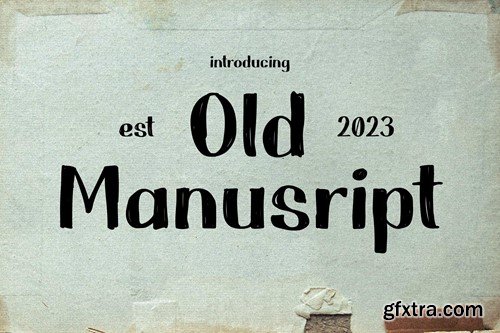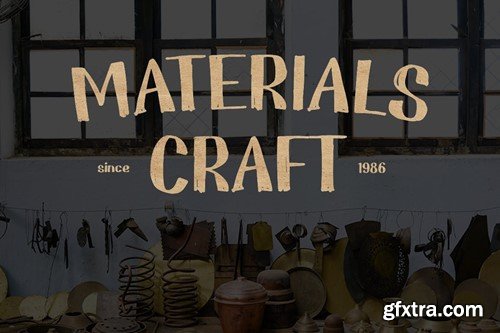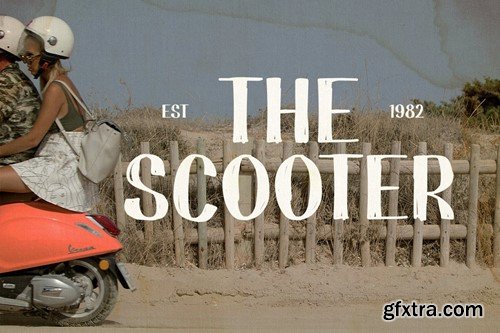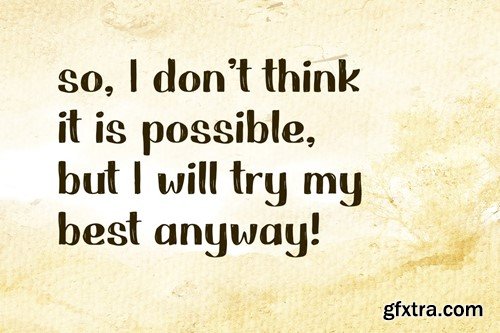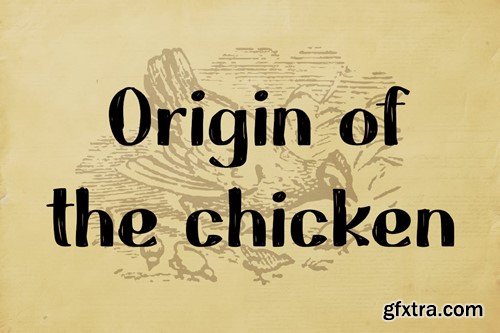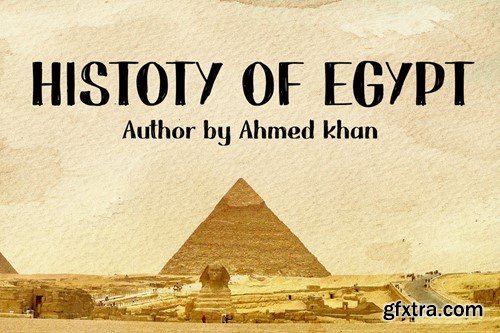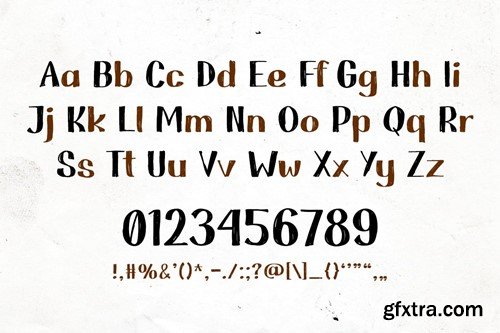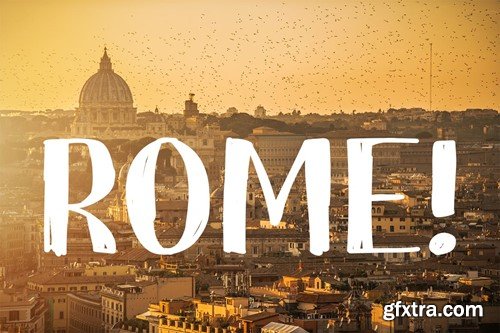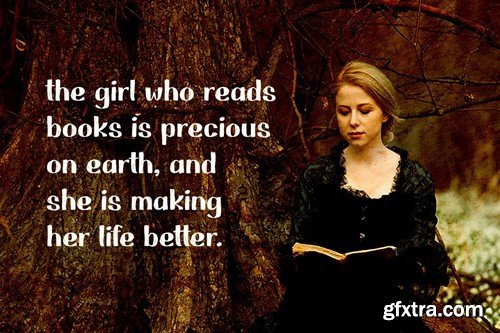
古籍手稿 - 照片字体 ZM4SWFM
Old Manuscript - Vintage Typewriter Font ZM4SWFM
Old Manuscript - Vintage Typewriter Font
Old Manuscript brings back the essence of vintage typewriters and retro aesthetics. Its classic appeal and nostalgic charm make it ideal for logos, quotes, invitations, packaging, and various design projects. This font encapsulates an era gone by, exuding an air of sophistication and historical allure. Perfect for wedding invitations, poster headlines, and various creative ventures, Old Manuscript adds a touch of timeless elegance to your designs.
• Basic Latin A-Z and A-z
• Numbers
• Punctuation